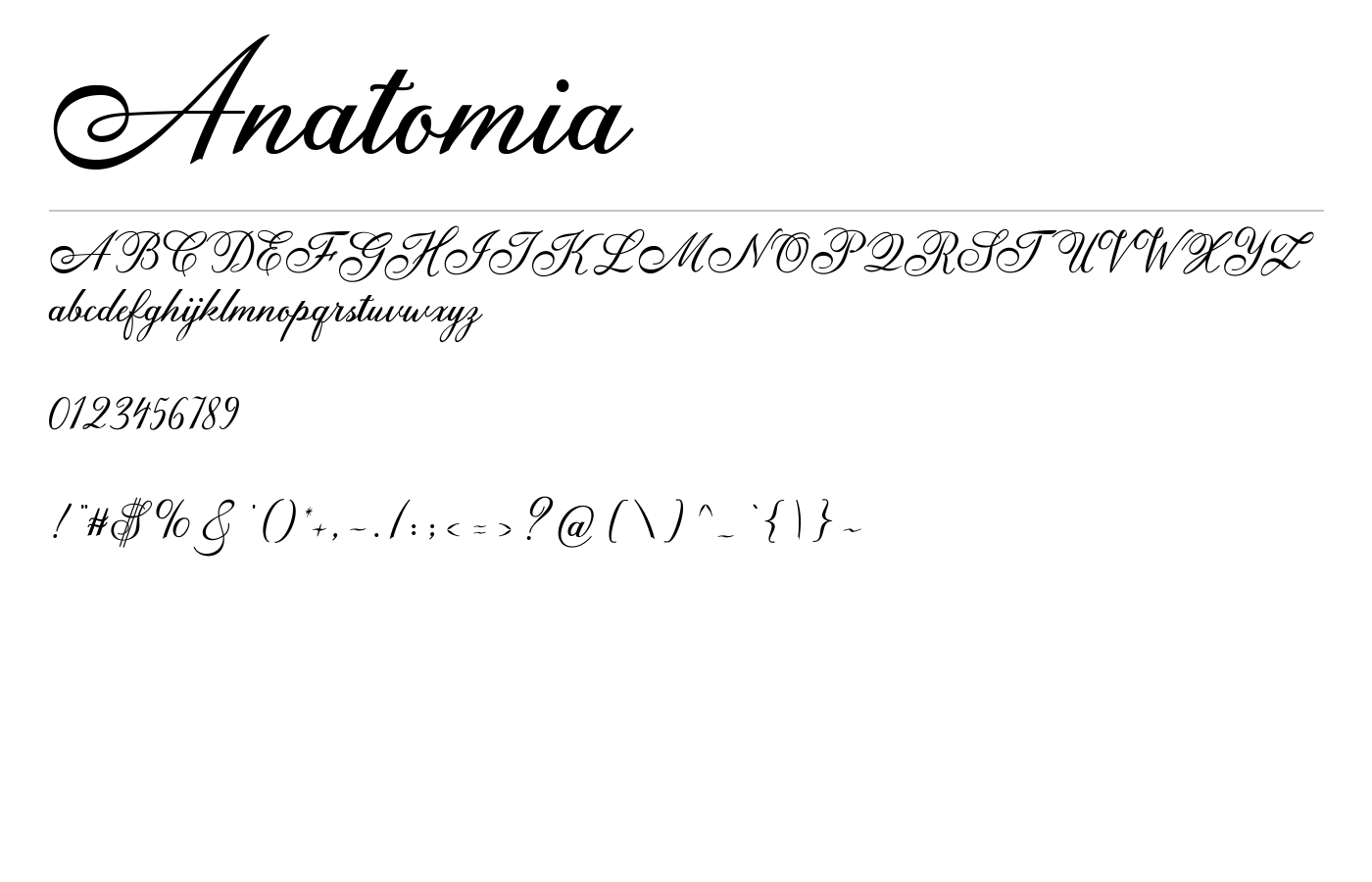
Anatomia is an elegant script font featuring flowing, high-contrast strokes with graceful flourishes and smooth curves that mimic classic calligraphy. Its refined and delicate style makes it ideal for sophisticated branding, wedding invitations, and upscale editorial design where a touch of luxury and formality is desired. This font works best in display sizes, bringing a timeless, romantic feel to any project.
Anatomia Font
About Anatomia Font
| Font family | Anatomia Font |